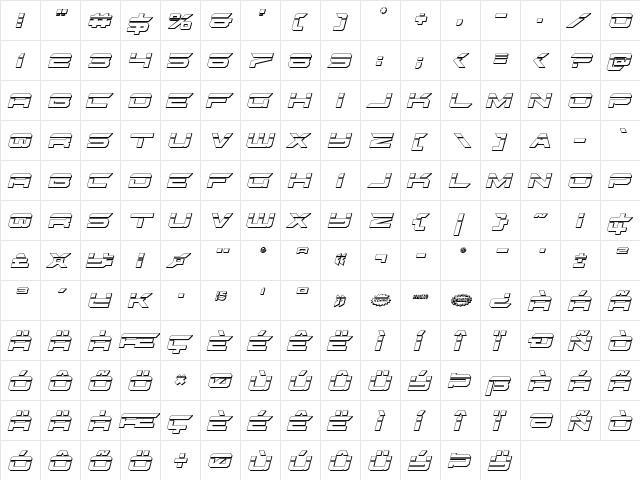
Gypsy Killer Bullet Italic Italic
Design Context for Gypsy Killer Bullet Italic Typeface
Gypsy Killer Bullet Italic is a composed and adaptable typeface that performs quietly and consistently across a wide range of design contexts. The dynamic lean of this cut emphasises speed and emphasis in any layout.